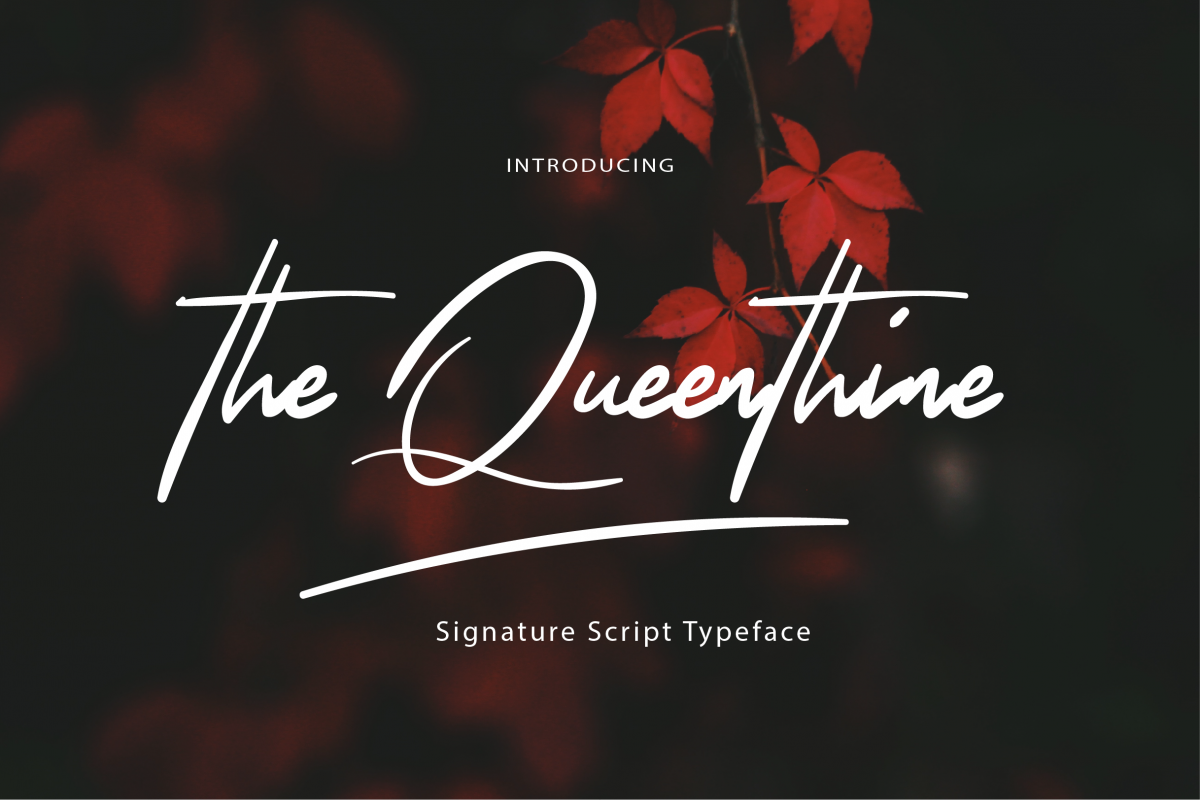
The Queenthine - Signature Script Font
TheQueenthine
The Queenthine *A Signature Script Typeface”The Queenthine is signature script typeface with stylish calligraphy style. It’s a great typeface for Photographer Signatures or Logos that want to emulate a Signature. It also works great for titles, postcards, packaging, labels, apparel, prints, quotes etc.The Queenthine includes an .OTF & .TTF  file and includes western european characters.T